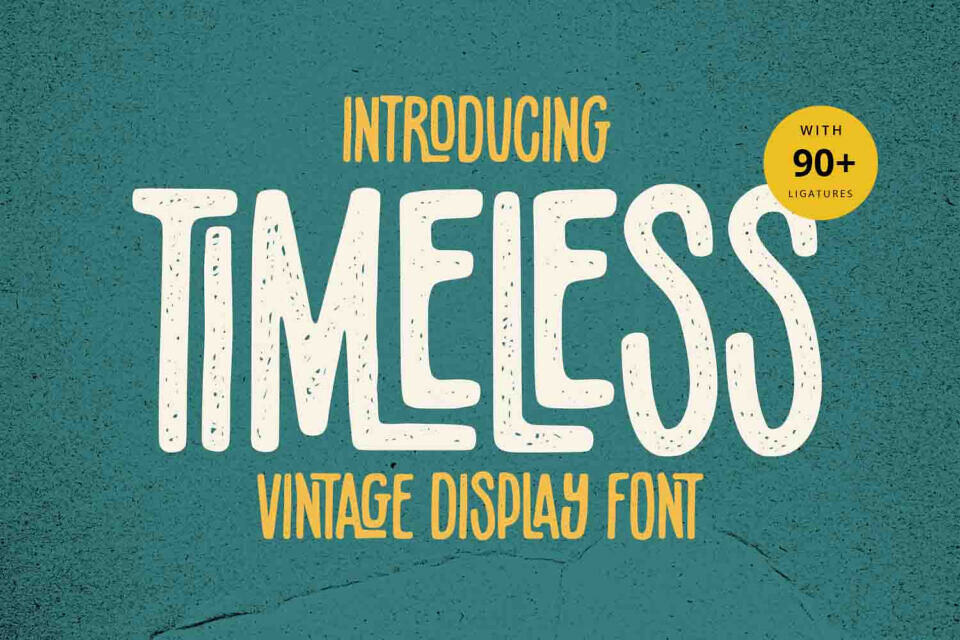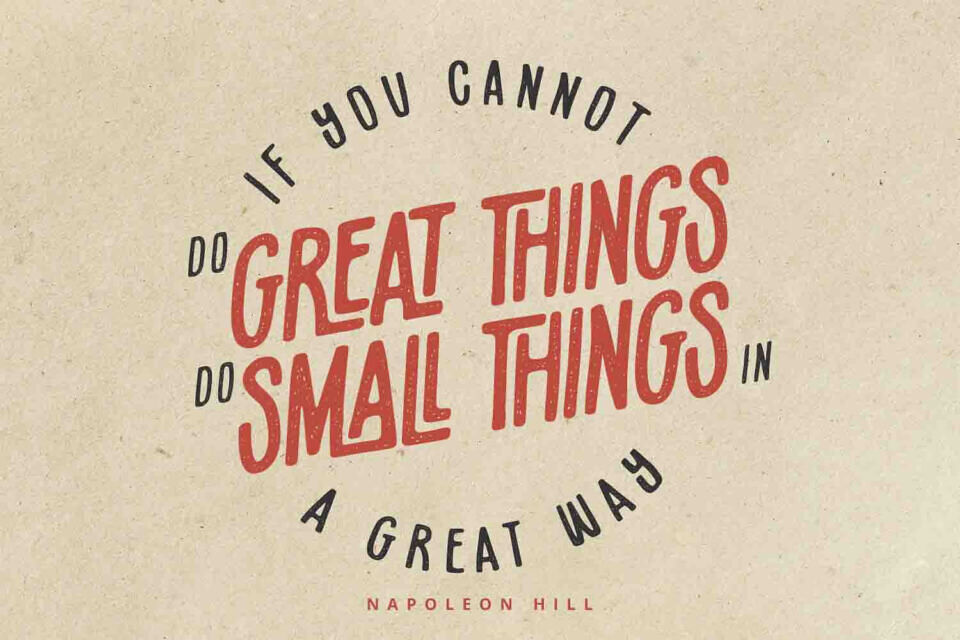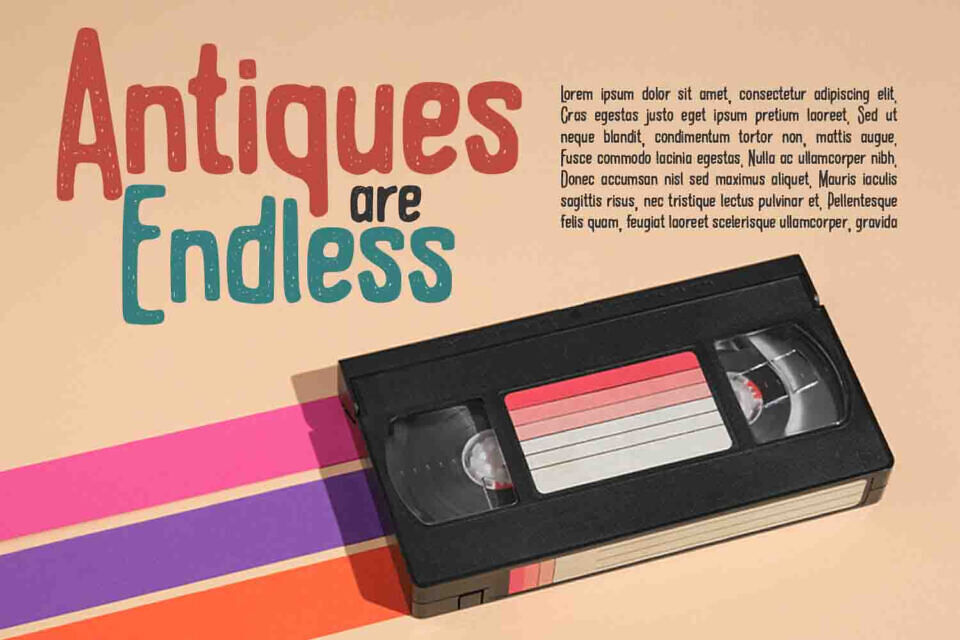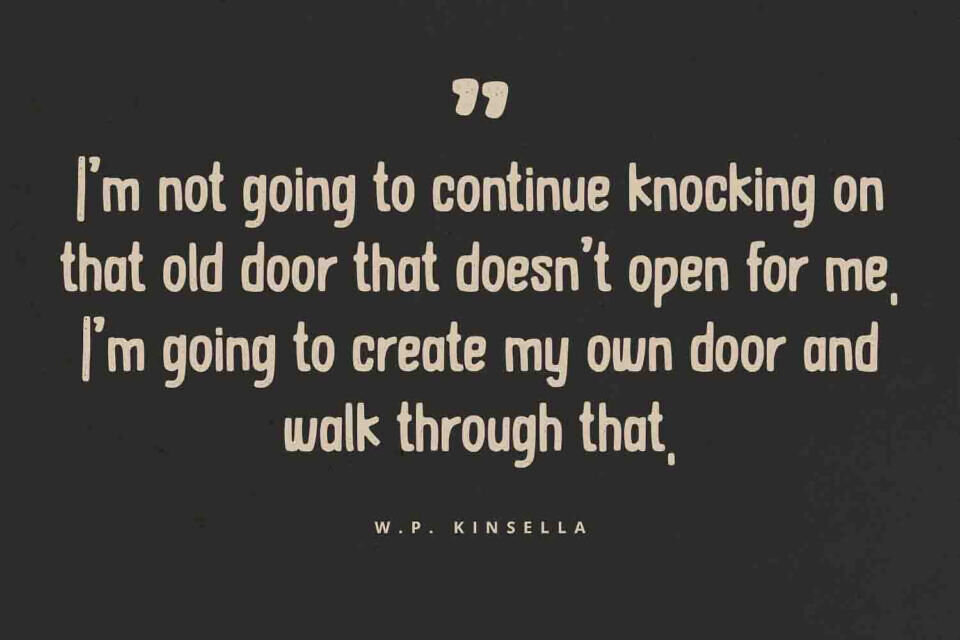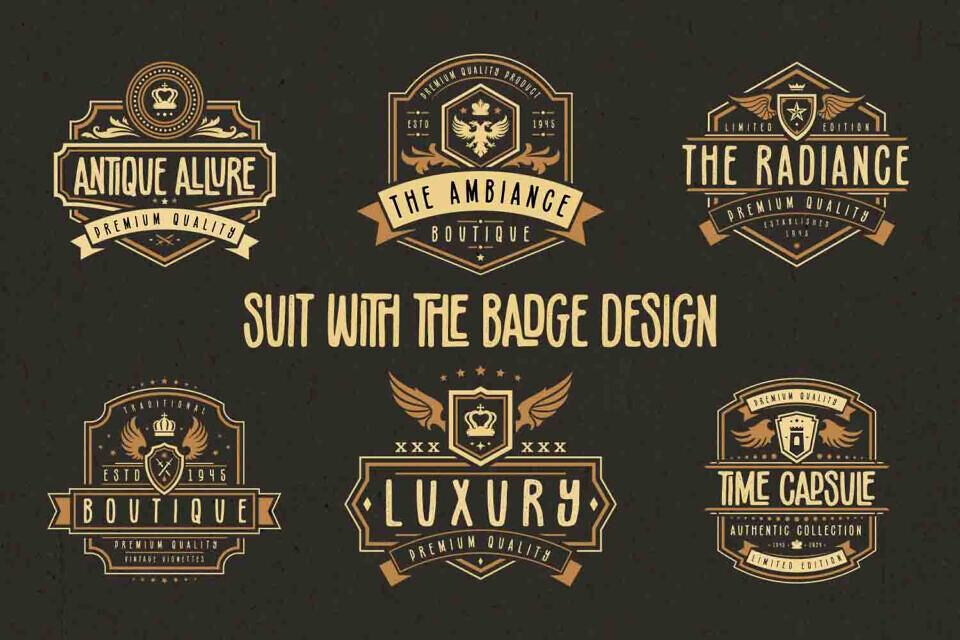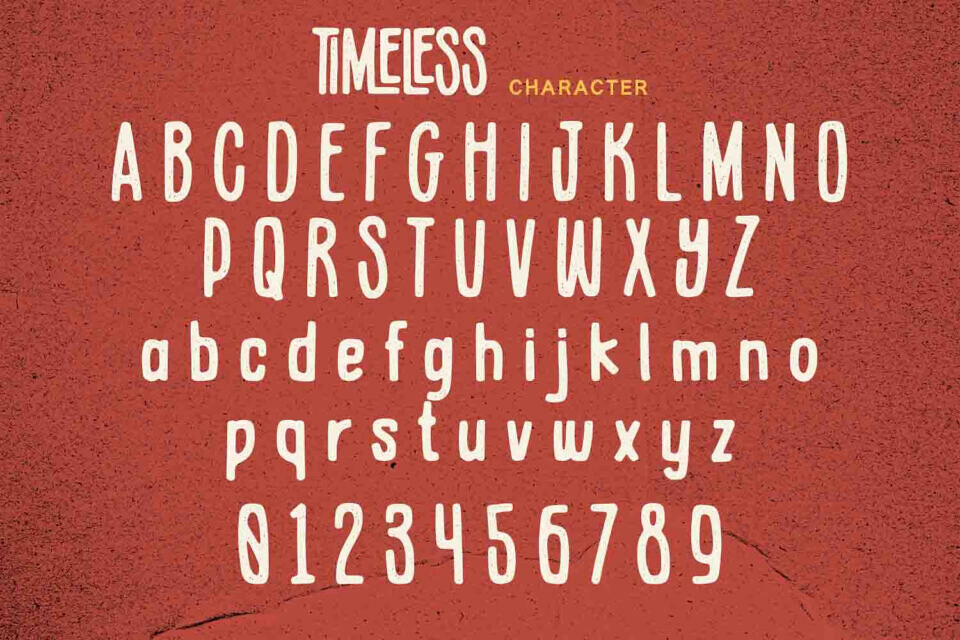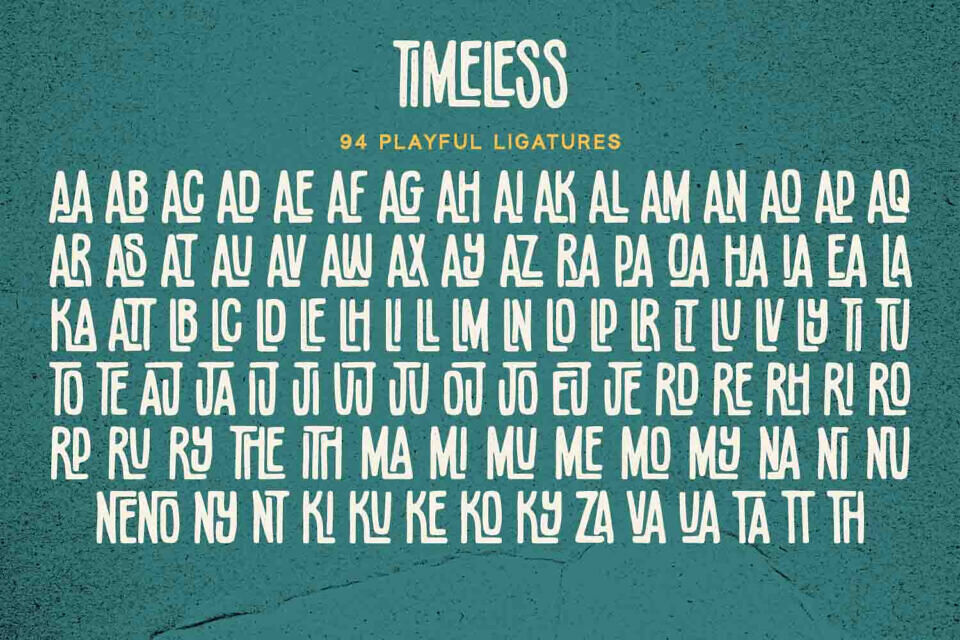
Timeless Font
Timeless is a rustic vintage font with authentic and classic feels. It will be perfectly used for Branding, Logo Design, Lettering, Logotype, Clothing, Poster, magazine, packaging, posters, shopping bags, t-shirts, book covers, photography, special events and other design project.